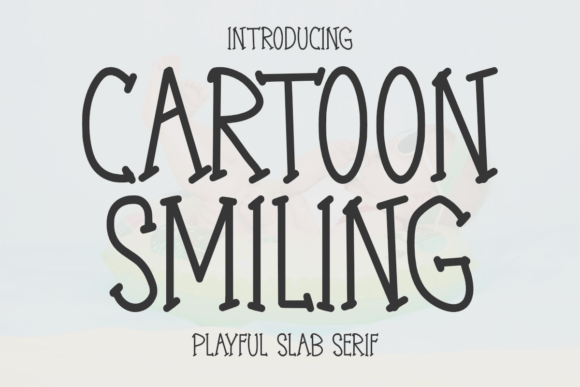
Introducing Cartoon Smiling Font: The Ultimate Choice for Fun and Playful Designs
Are you looking for a font that can add a touch of fun and playfulness to your designs? Look no further than Cartoon Smiling Font! This quirky and cheerful slab serif font is full of energy and charm, making it perfect for a wide range of applications, from storybooks and children’s games to posters and more.
What Makes Cartoon Smiling Font So Special?
Cartoon Smiling Font is a bold, eye-catching font that brings a joyful, kid-friendly vibe to any design. Its playful proportions and chunky slab ends make it stand out from the crowd, adding a touch of whimsy and fun to your text. Whether you’re creating a children’s book, a game, or a poster, this font is sure to delight your audience and leave a lasting impression.
Key Features of Cartoon Smiling Font
- Playful proportions: Cartoon Smiling Font has a unique and playful structure that sets it apart from other fonts.
- Chunky slab ends: The font’s chunky slab ends add a touch of fun and whimsy to your text.
- Bold and eye-catching: Cartoon Smiling Font is a bold, attention-grabbing font that’s perfect for designs that need to stand out.
- Kid-friendly vibe: The font’s playful and cheerful design makes it perfect for children’s books, games, and other kid-friendly applications.
Use Cases for Cartoon Smiling Font
Cartoon Smiling Font is a versatile font that can be used in a wide range of applications, including:
- Storybooks: Add a touch of fun and playfulness to your storybooks with Cartoon Smiling Font.
- Children’s games: The font’s kid-friendly vibe makes it perfect for children’s games, puzzles, and other interactive applications.
- Posters: Use Cartoon Smiling Font to create eye-catching posters that are sure to grab attention.
- Social media graphics: Add a touch of fun and whimsy to your social media graphics with Cartoon Smiling Font.
- Packaging design: The font’s bold and eye-catching design makes it perfect for packaging design, especially for children’s products.
Why Choose Cartoon Smiling Font?
There are many fonts to choose from, but Cartoon Smiling Font stands out from the crowd for several reasons:
- Unique design: Cartoon Smiling Font has a unique and playful design that’s sure to grab attention.
- Kid-friendly vibe: The font’s kid-friendly vibe makes it perfect for children’s applications.
- Versatile: Cartoon Smiling Font can be used in a wide range of applications, from storybooks to posters.
- Easy to read: Despite its playful design, Cartoon Smiling Font is easy to read, making it perfect for body text and headlines.
Tips for Using Cartoon Smiling Font
Here are some tips for getting the most out of Cartoon Smiling Font:
- Use it for headlines: Cartoon Smiling Font is perfect for headlines and titles, where its bold and eye-catching design can really shine.
- Pair it with a simple font: For body text, pair Cartoon Smiling Font with a simple font to create a nice contrast.
- Experiment with colors: Cartoon Smiling Font looks great in bright, bold colors, so don’t be afraid to experiment.
- Use it for kids’ applications: The font’s kid-friendly vibe makes it perfect for children’s applications, such as storybooks and games.
In conclusion, Cartoon Smiling Font is a unique and playful font that’s perfect for adding a touch of fun and whimsy to your designs. Its bold and eye-catching design, kid-friendly vibe, and versatility make it a great choice for a wide range of applications. Whether you’re creating a children’s book, a game, or a poster, Cartoon Smiling Font is sure to delight your audience and leave a lasting impression.